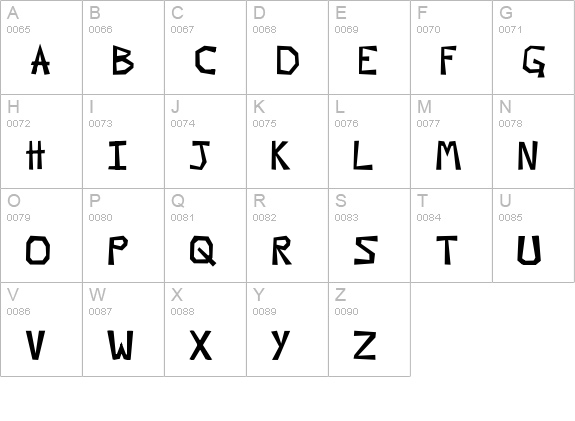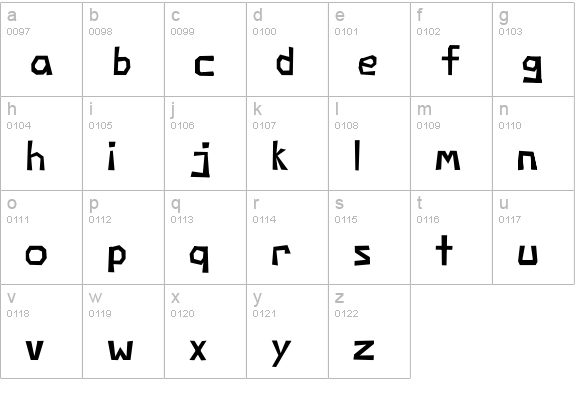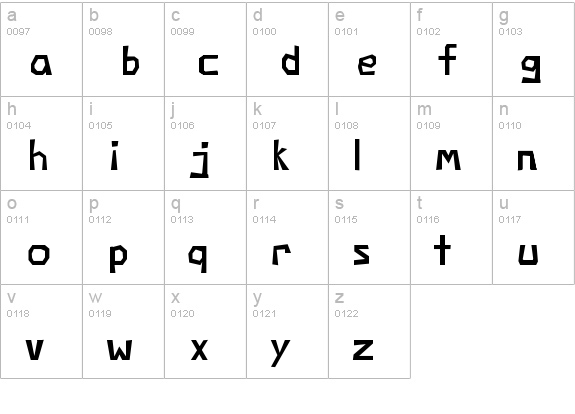
Negatori Font Details
Negatori font is a modern and stylish typeface that exudes a sense of sophistication and elegance. With its sharp lines and sleek design, this font is perfect for creating eye-catching headings, logos, and branding materials. The unique letterforms of Negatori font give any project a contemporary and professional look. What sets Negatori font apart is not just its aesthetic appeal, but also the fact that it is available for free download at FontsMarket.com. This means you can easily access this high-quality font without any cost, making it a valuable addition to your design toolkit. Whether you're a graphic designer, a blogger, or a business owner looking to elevate your visual identity, Negatori font is a versatile and versatile choice that will help you stand out from the crowd.